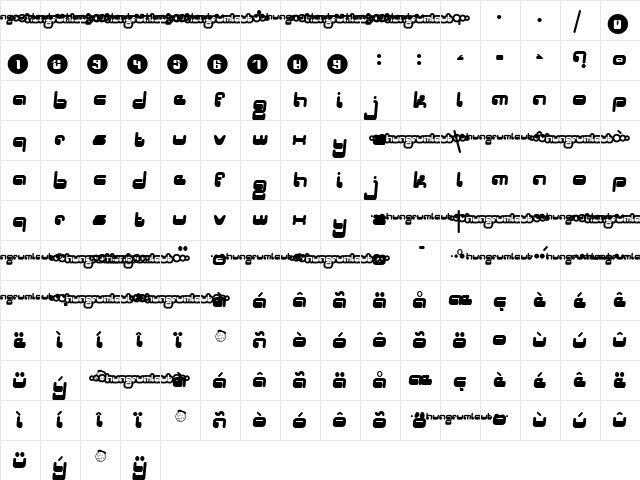
Hungrumlaut Regular
Design Context for Hungrumlaut Typeface
Hungrumlaut is a composed and adaptable typeface that performs quietly and consistently across a wide range of design contexts.